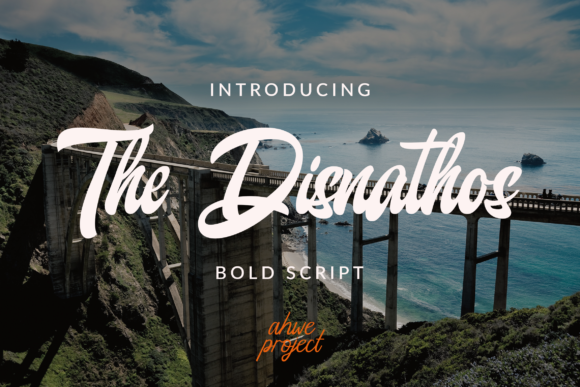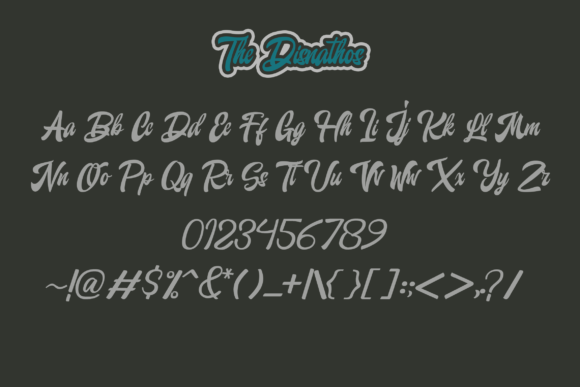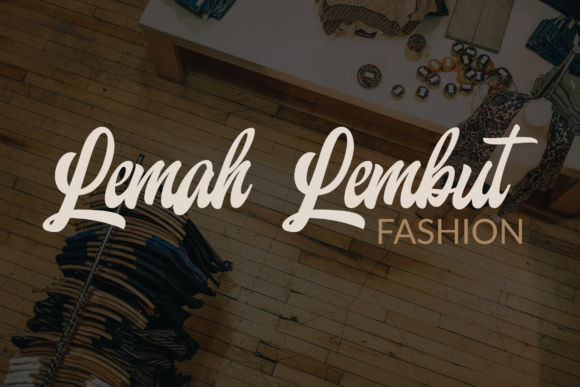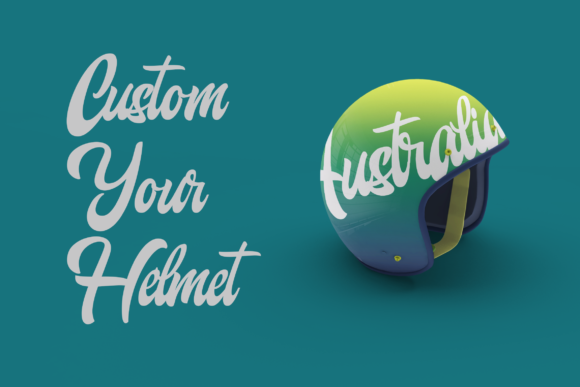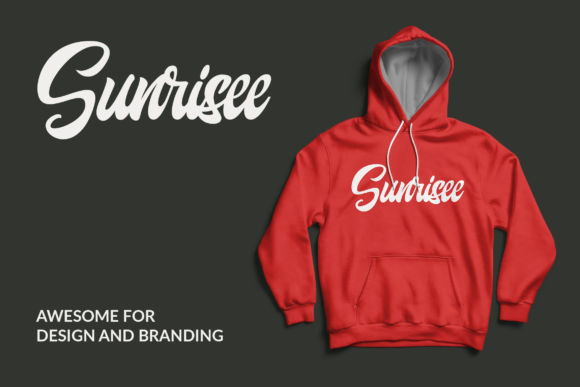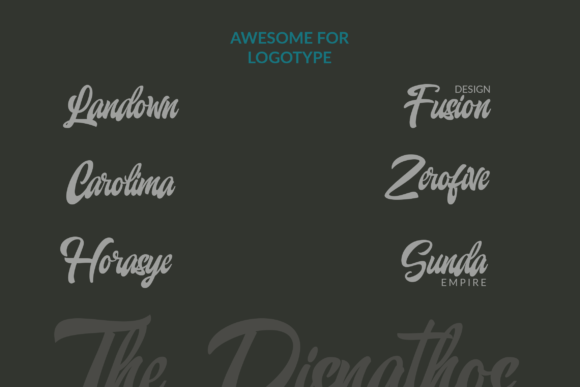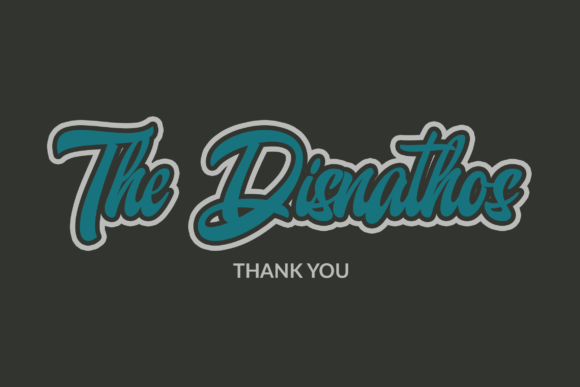
HomeScript FontsThe Disnathos Font Script Fonts The Disnathos Font FacebookXPinterestWhatsApp The Disnathos Font Poster 2 The Disnathos Font Poster 3 The Disnathos Font Poster 4 The Disnathos Font Poster 5 The Disnathos Font Poster 6 The Disnathos Font Poster 7 About The Disnathos Font The Disnathos is a natural bold script, inspired by vintage aesthetic. Fall in love with its nostalgic charm! DOWNLOAD NOW People also explored Skycrause Font Broisther Font Reymond Font Michalline Font Aprilra Font Hanepoly Font Blackswan Monoline Signature Font Vallena Font Honey Beezy Font 291 0 TagsThe Disnathos Font Previous articleSoffnia FontNext articleBroolia Font LEAVE A REPLY Cancel reply Comment: Please enter your comment! Name:* Please enter your name here Email:* You have entered an incorrect email address! Please enter your email address here Website: Save my name, email, and website in this browser for the next time I comment. Personal Use Free Dream Personal Use Free Read more about this font Winter Soldier Personal Use Free Read more about this font Electroharmonix Personal Use Free Read more about this font 08 Underground Personal Use Free Read more about this font BLOG Free Fonts Risk: Why Free Fonts Can Be Dangerous for Designers Free Fonts Risk: Why Free Fonts Can Be Dangerous for Designers Using free fonts is a common practice in web and graphic design. However, the... Best Fonts for YouTube Videos: Make Your Thumbnails Stand Out To increase your work productivity, choose the most readable fonts. Where to Buy American Fonts Online in 2024